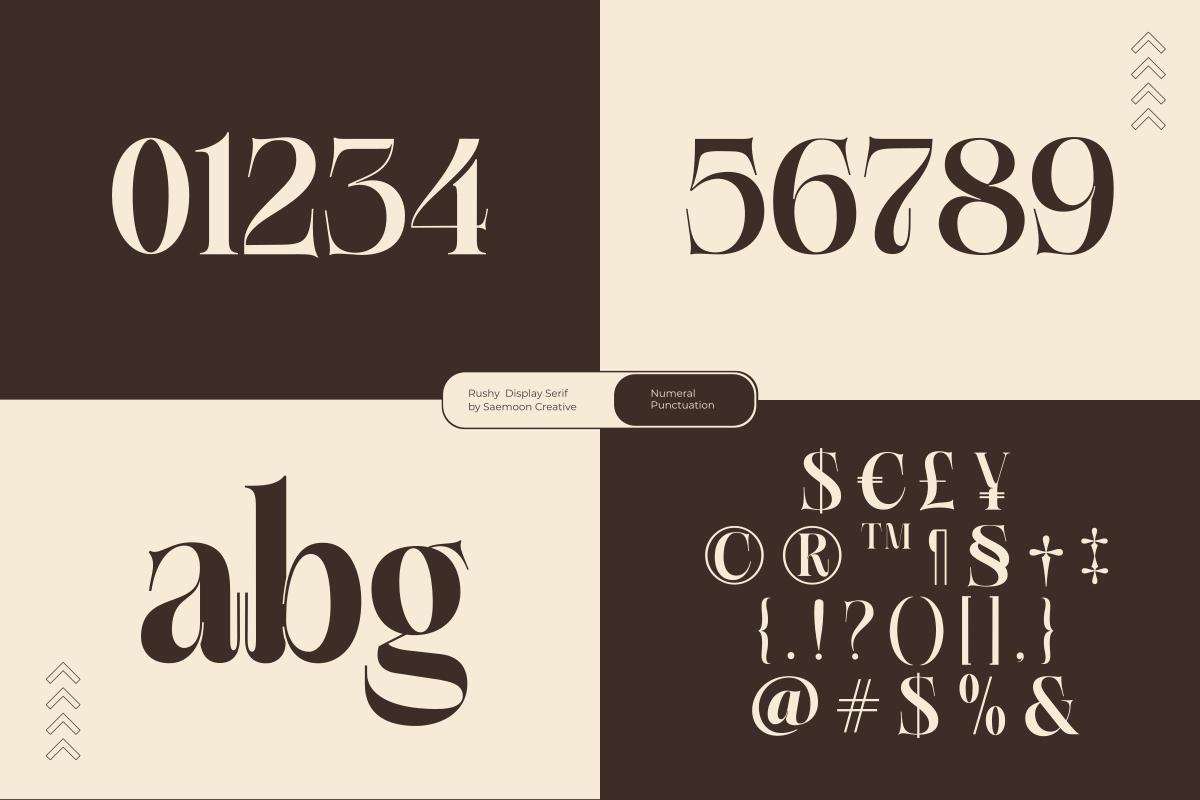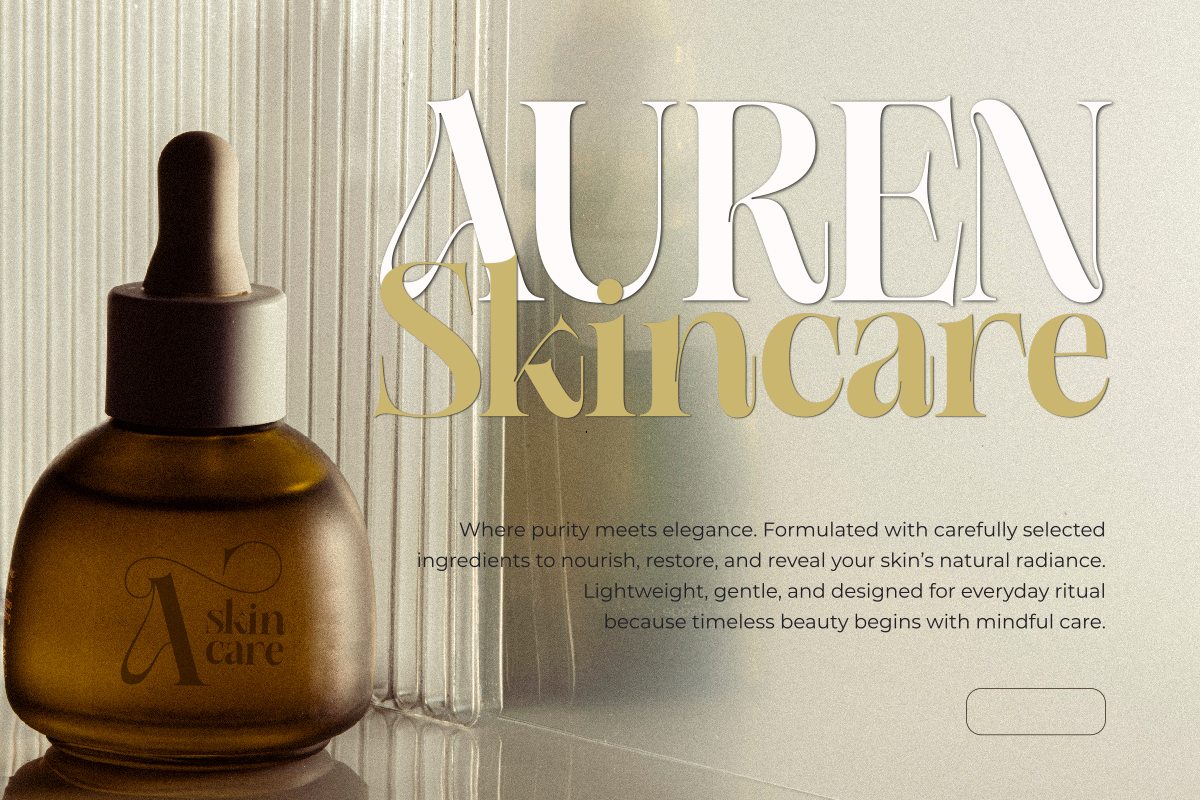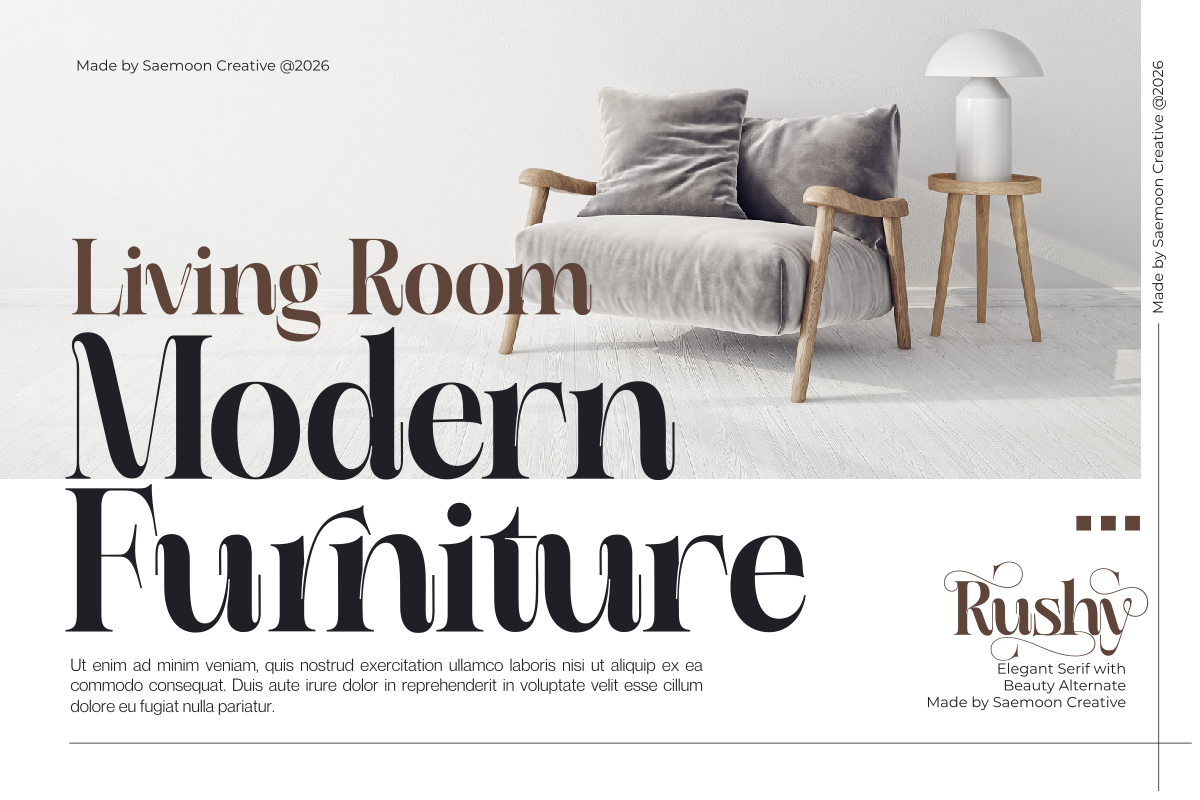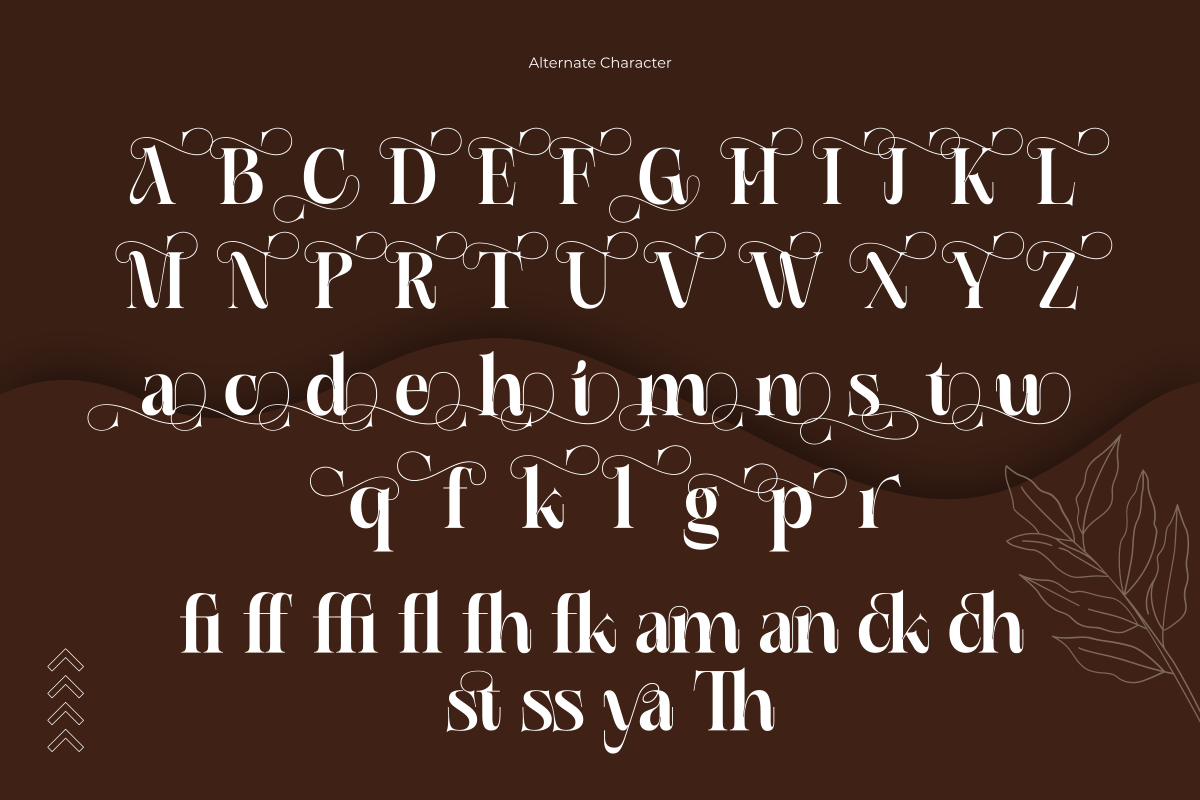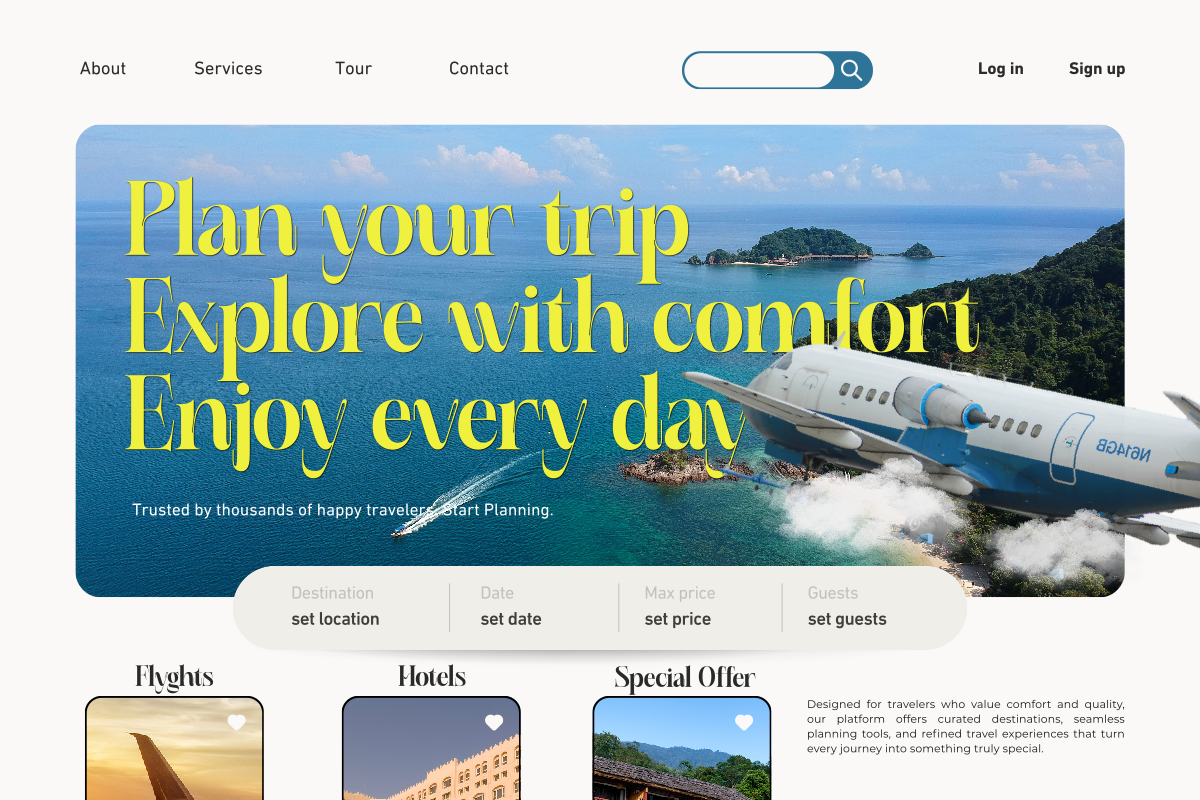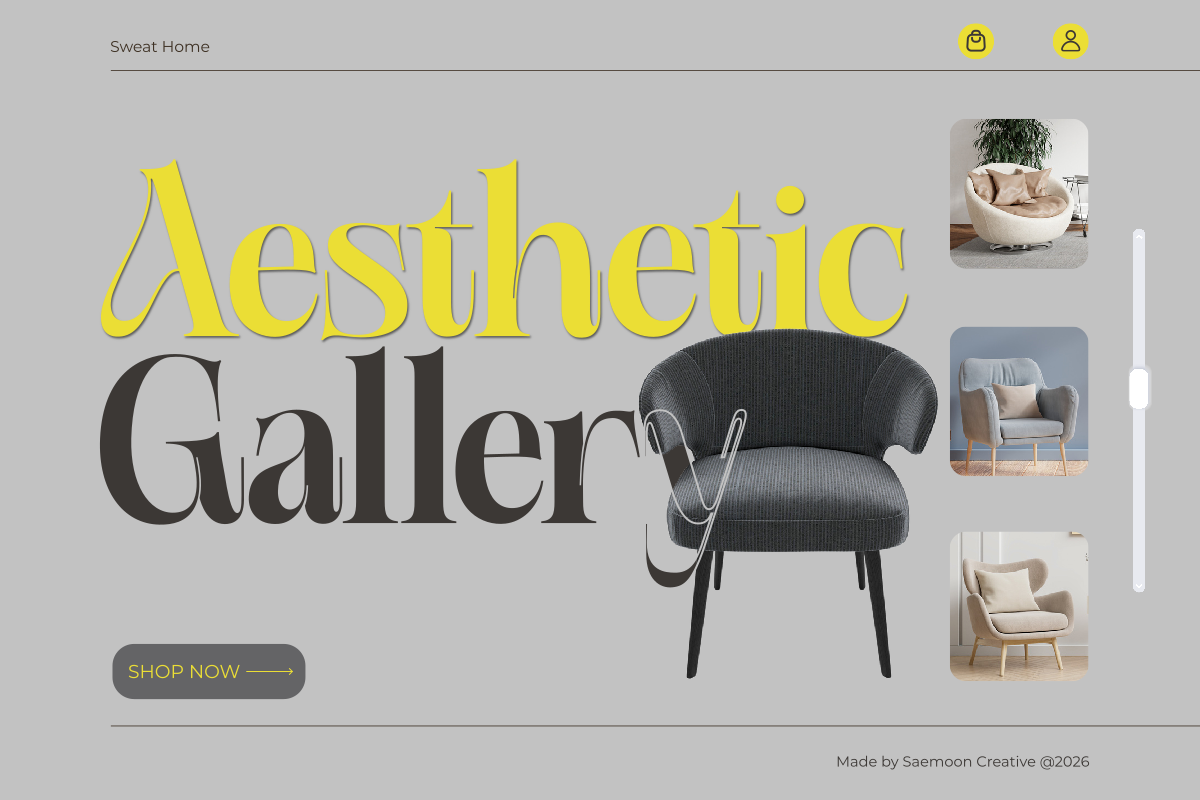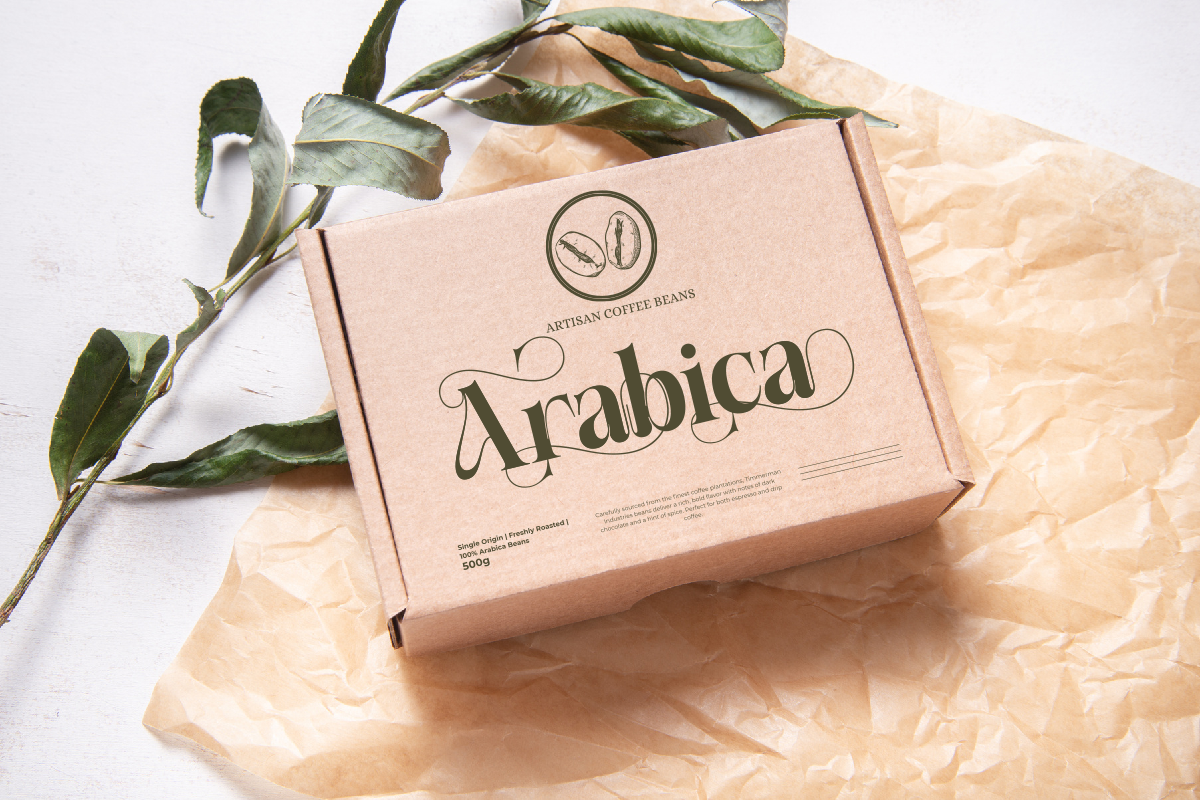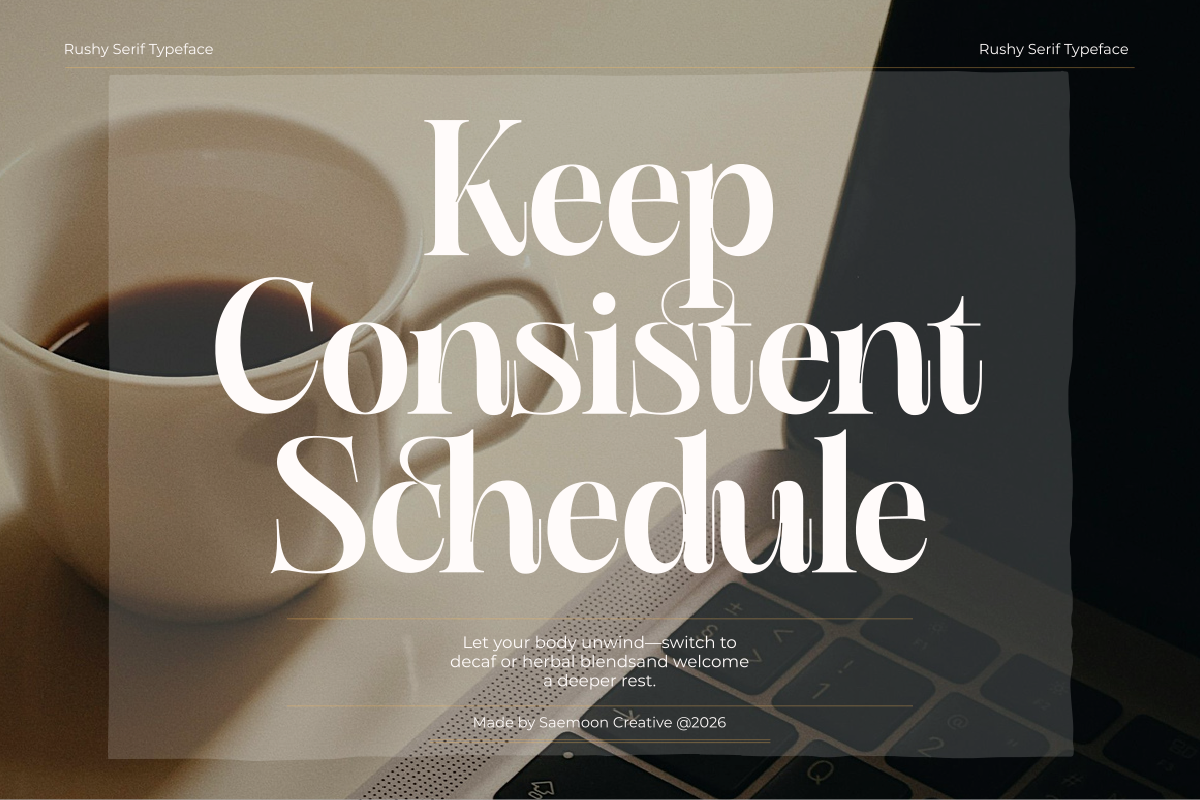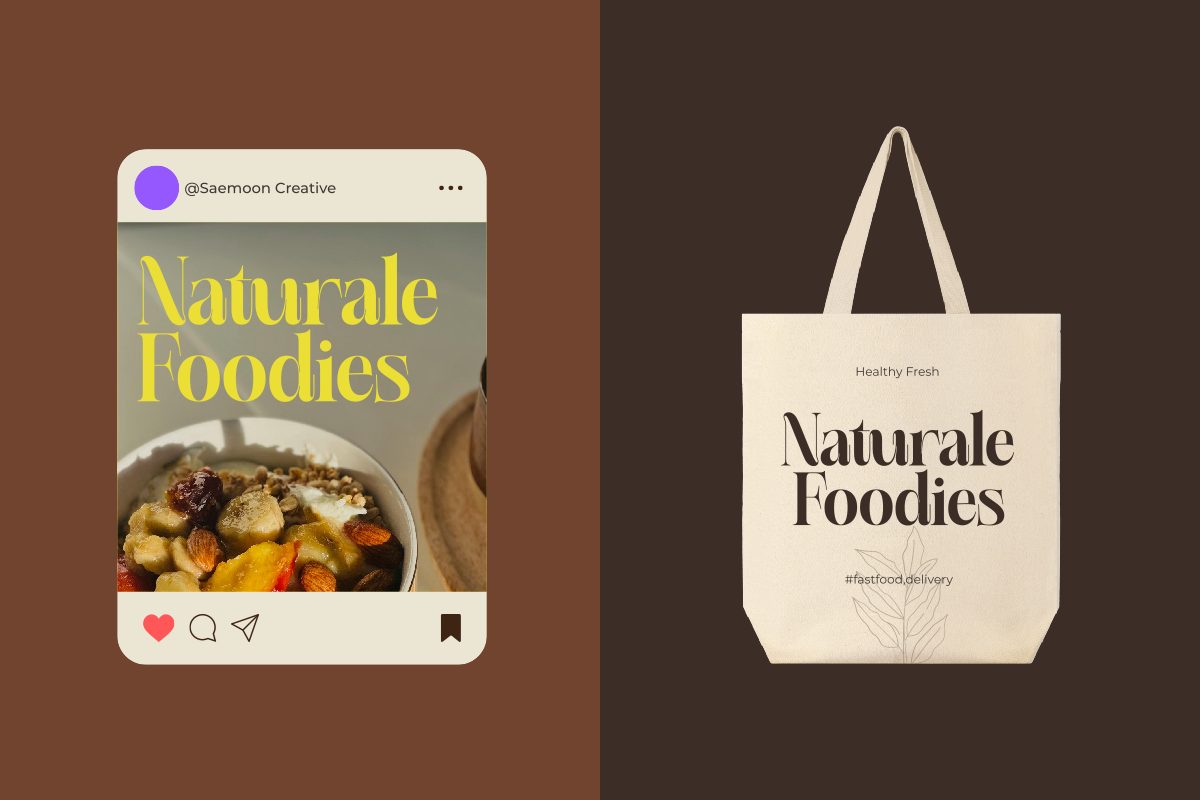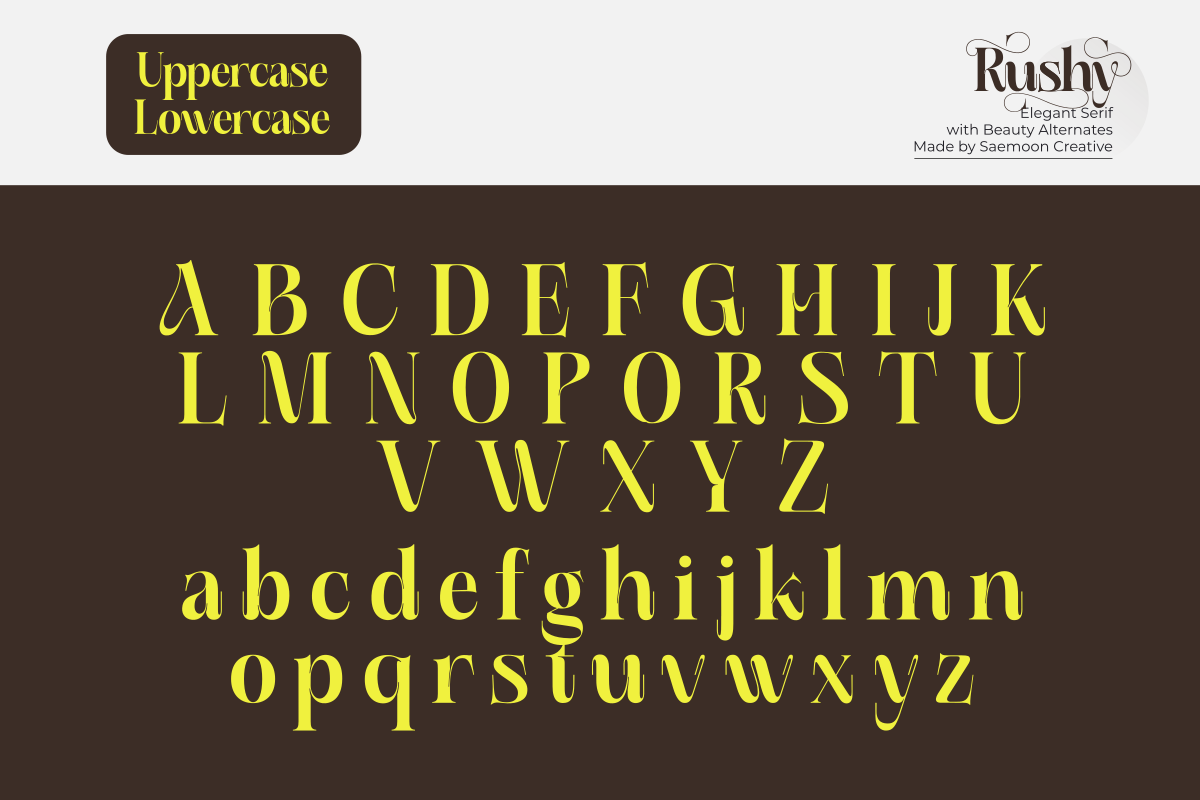
Rushy
Rushy is an elegant display serif designed with a romantic and refined character. Featuring graceful curves, stylish swashes, and beautiful alternates, Rushy creates a luxurious and eye-catching look for your typography.
This typeface is perfect for branding, logos, wedding invitations, packaging, fashion editorials, headlines, and any creative project that needs a touch of elegance and personality. With its decorative details and expressive letterforms, Rushy helps your design stand out with charm and sophistication.
- Stylistic Alternates & Swashes
Perfect for designers, creators, and brands who want to add a romantic and elegant statement to their work.